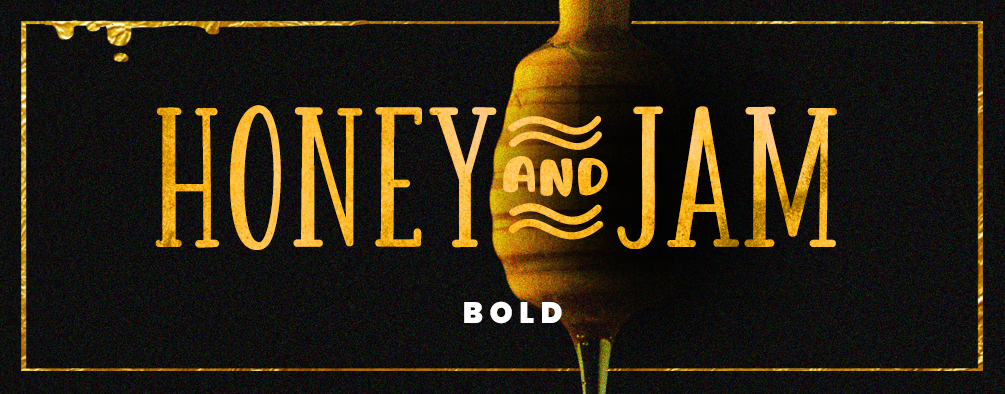
Honey and Jam - Bold
You’re buying the full version of “Honey and Jam - Bold”, our latest classy and elegant handwritten styled font. The full version has 208 glyphs and includes numbers, special glyphs and language support for most latin languages.